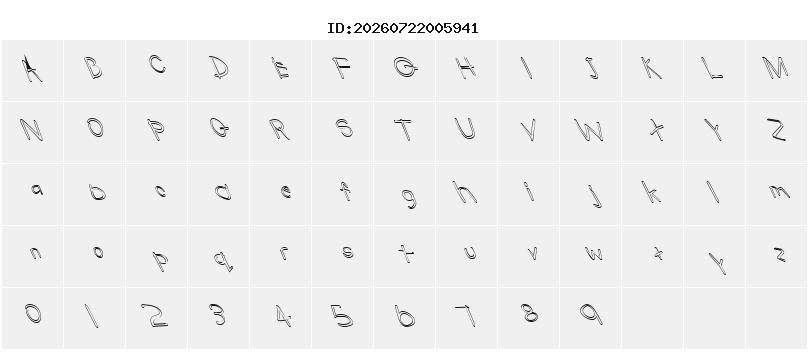
About FZ HAND 22 HOLLOW LEFTY.ttf
FZ HAND 22 HOLLOW LEFTY.ttf is a modern, elegant sans-serif font designed for ultimate readability and visual harmony. Perfect for branding, headlines, web design, and print materials.